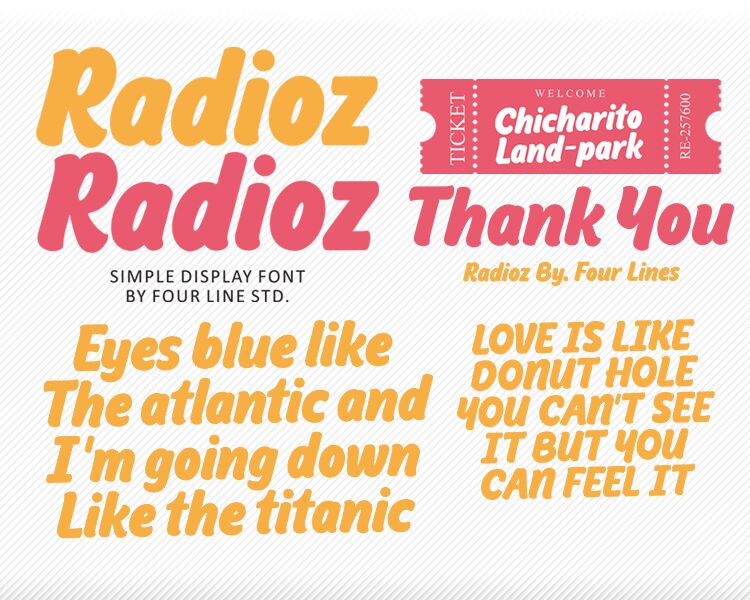
Radioz
Radioz font by Four Lines is an energetic display font characterized by its retro inspiration and bold appearance. The expressive characters have a vintage feel with a casual aesthetic sure to inspire imagination in its viewers. It also includes modern appeal making it timeless and adaptable for all kinds of creative projects.
Use this free display font on apparel design, digital posters, magazine or book cover designs, educational tools, storytelling mobile applications, virtual reality games’ branding projects, greeting cards or postcards. Websites headers or advertisements can all feature with Radioz too!